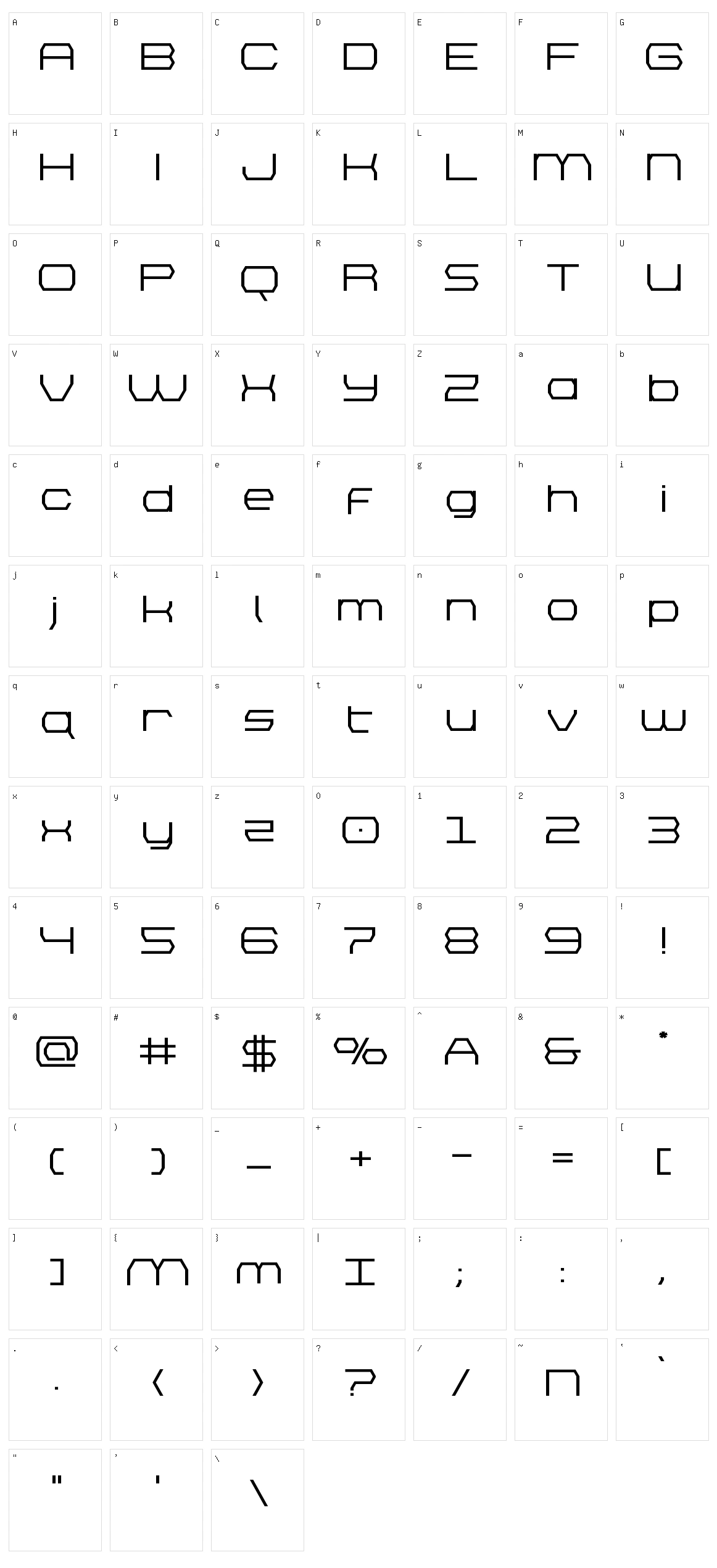
The free font Bretton is carefully designed by Iconian Fonts, showcasing a thoughtful balance of creativity and usability and falls under the Square font style. When you download the ZIP file, it contains only 480.29 KB of font files, making it lightweight and quick to download. Please review the license details below to understand permitted usage and distribution rights. If license information is not available, we recommend using this font for personal projects only or contacting the author directly for commercial usage permissions.
2018 Iconian Fonts - Daniel Zadorozny
This font comes with the following 28 versions: Regular, Italic, Semi-Italic, Condensed, Condensed Italic, Expanded, Expanded Italic, Bold, Bold Italic, Bold Semi-Italic, Bold-Super-Italic, Semi-Bold, Semi-Bold Italic, Semi-Bold Semi-Italic, Semi-Bold Super-Italic, Semi-Bold Leftalic, Semi-Bold Expanded, Semi-Bold Expanded Italic, Semi-Bold Condensed, Semi-Bold Condensed Italic, Outline, Outline Italic, Outline Semi-Italic, Outline Super-Italic, 3D, 3D Italic, Super-Italic and Leftalic.